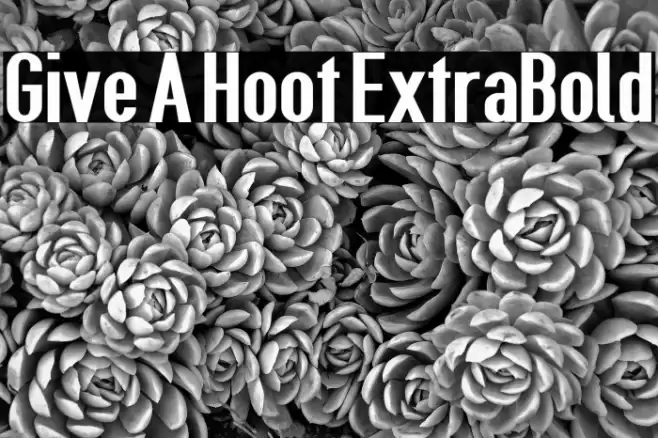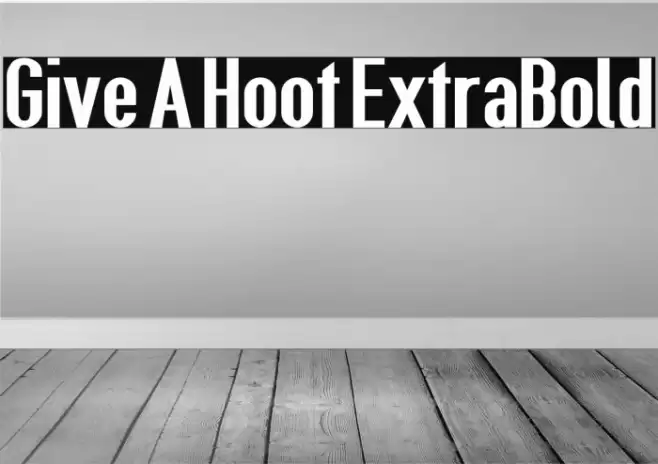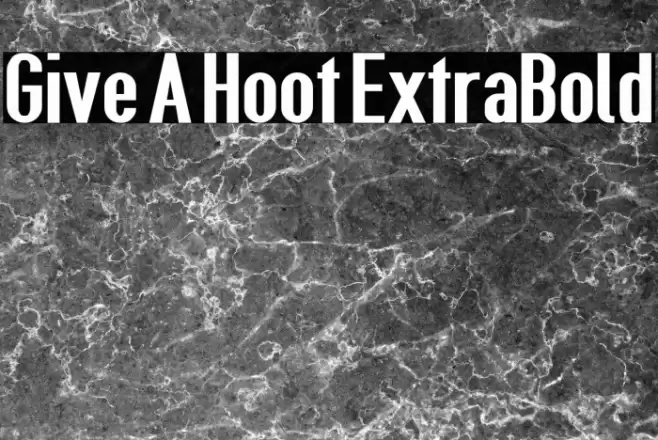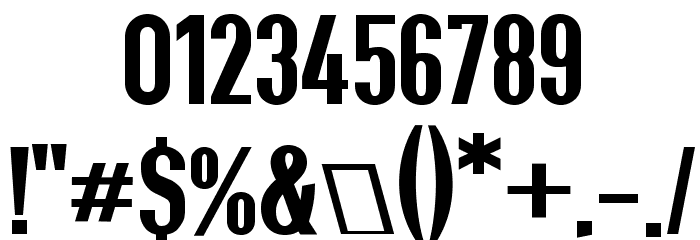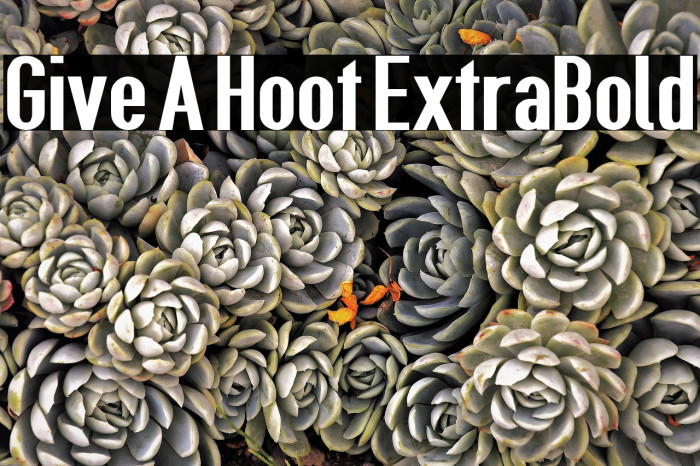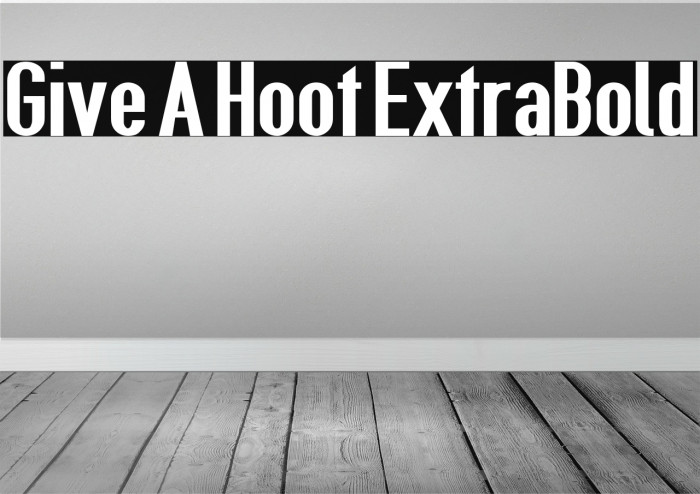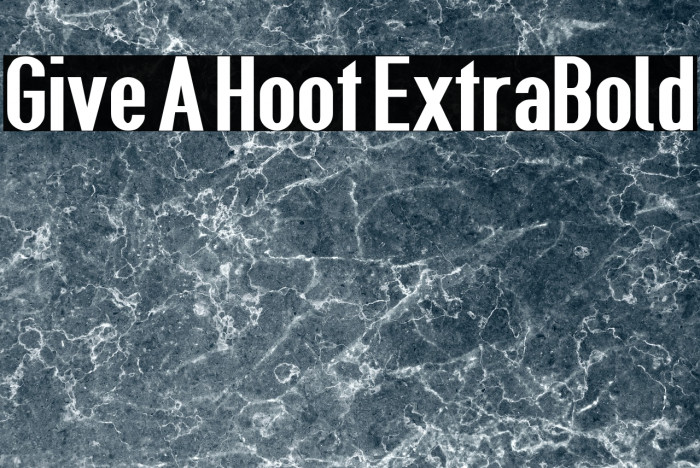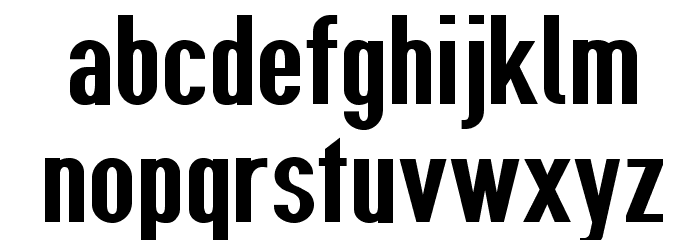
Give A Hoot ExtraBold Font
Give A Hoot ExtraBold Description
This font features a bold and assertive design, characterized by thick, uniform strokes that convey strength and confidence. The uppercase letters are tall and commanding, while the lowercase letters maintain a consistent weight, ensuring readability. The numerals are clear and robust, matching the overall boldness of the alphabet. Special characters are designed with the same bold strokes, providing a cohesive look across all glyphs. This font is ideal for making a strong visual impact, with its high contrast and solid structure.
A bold, impactful font with thick, uniform strokes and high contrast from Uncategorized fonts.
- Proposed Projects: Ideal for headlines, posters, branding, and any project requiring a strong visual impact.